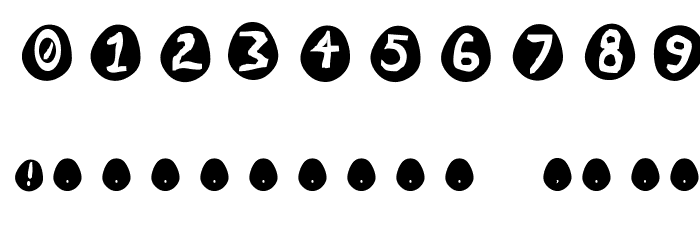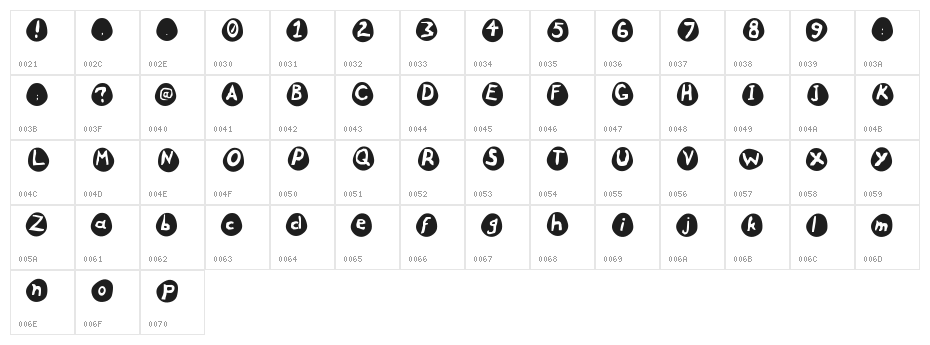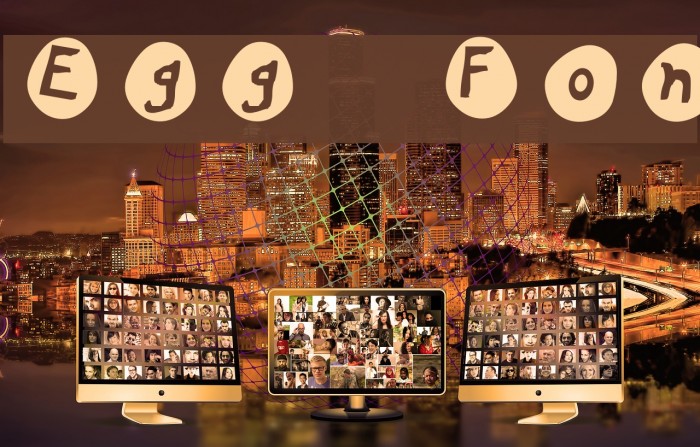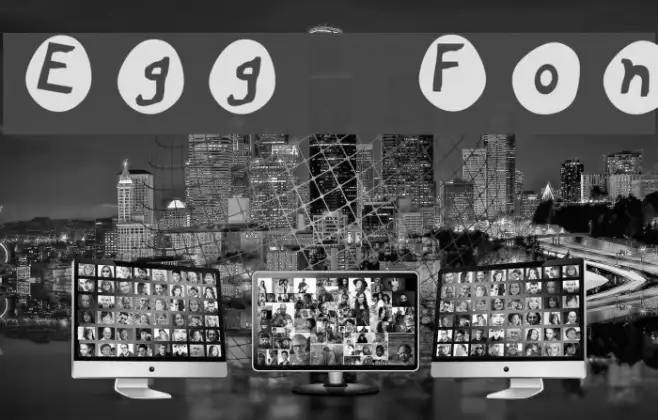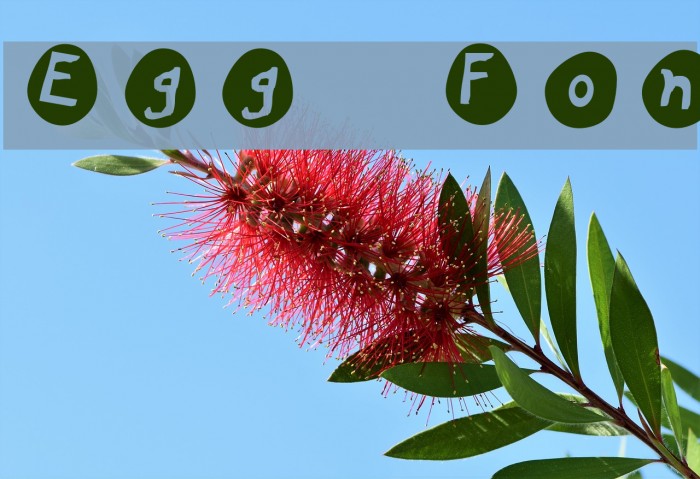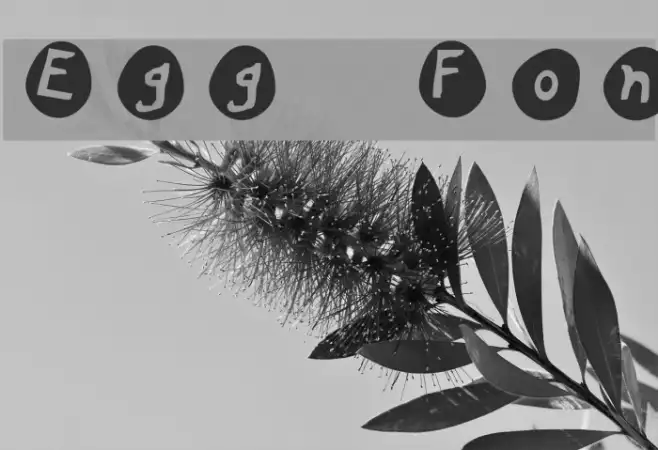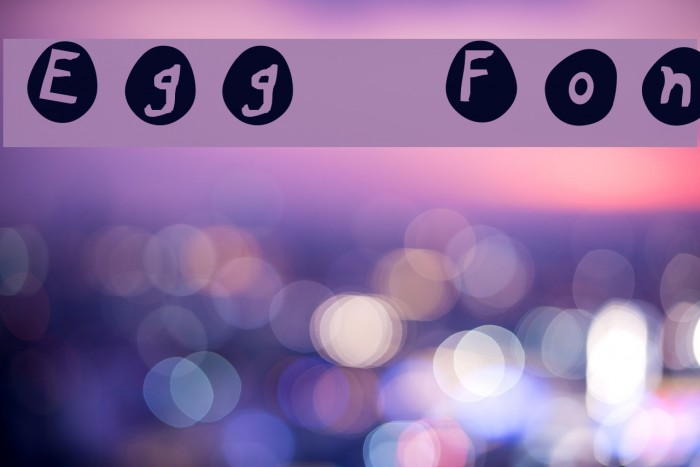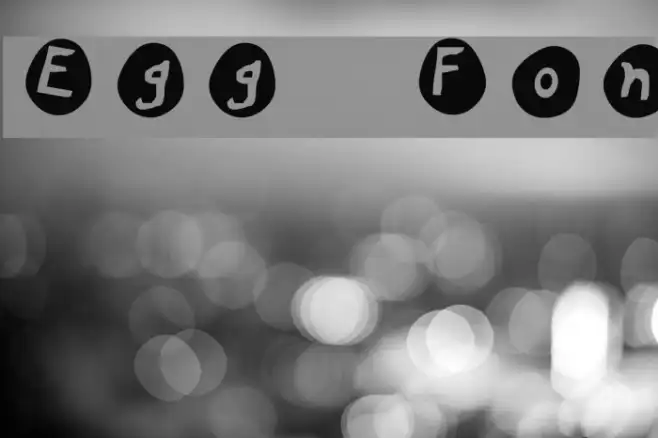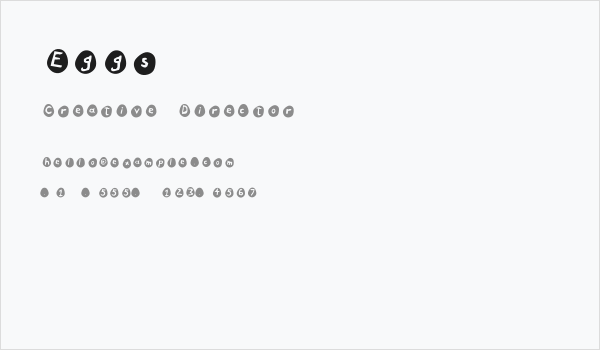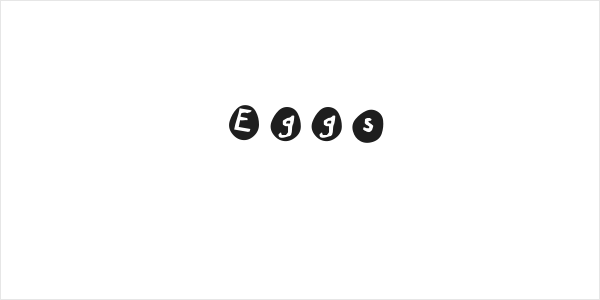
Eggs Font
Eggs Description
This playful and whimsical font features characters enclosed in egg-shaped ovals, creating a unique and eye-catching design. The letters are bold and rounded, with a hand-drawn appearance that adds a touch of fun and creativity. The uppercase and lowercase letters maintain a consistent style, while the numbers and special characters follow the same playful theme. This font's distinct style makes it ideal for projects that require a lighthearted and informal touch.
| Overall Style | Whimsical, Playful |